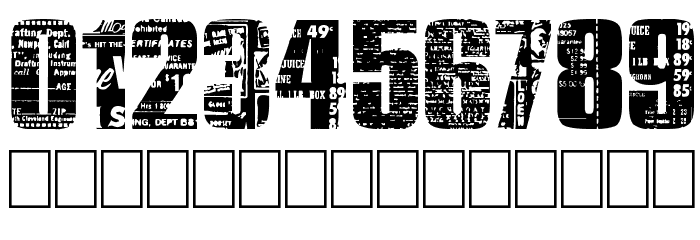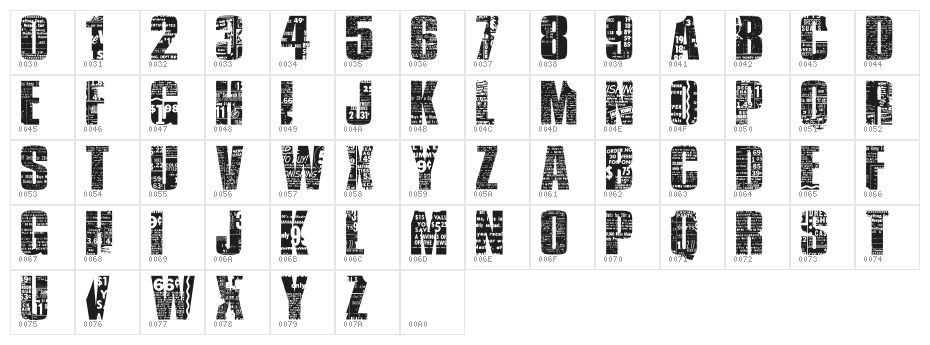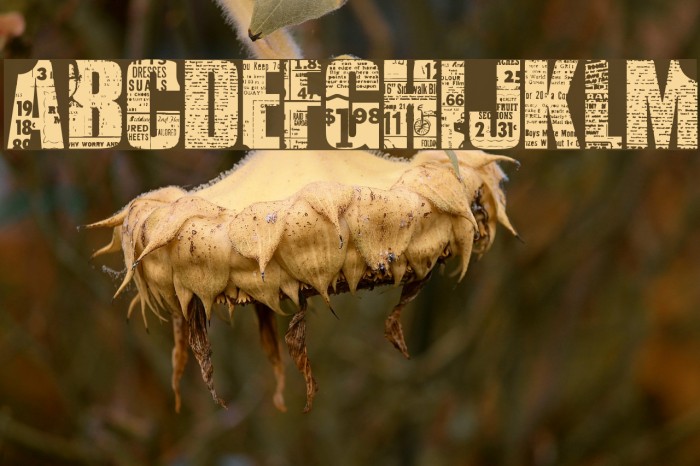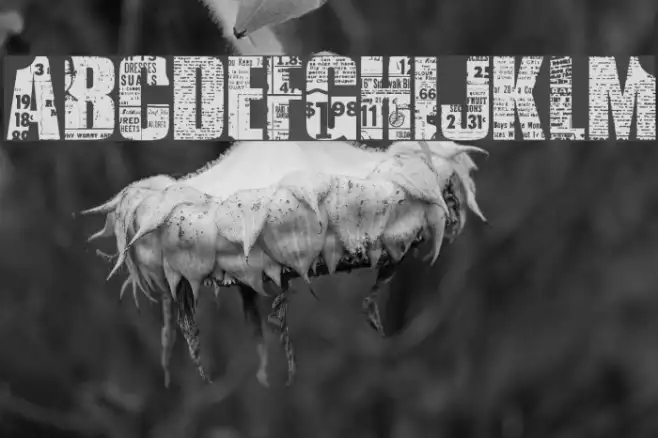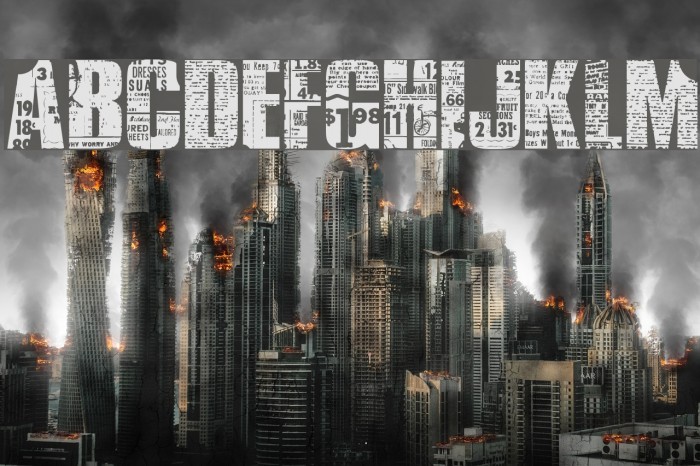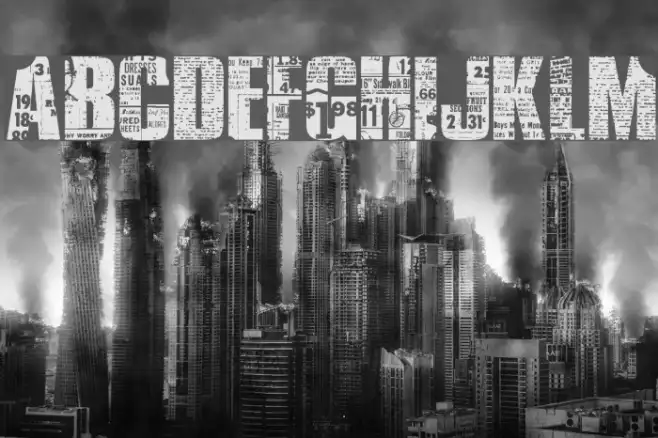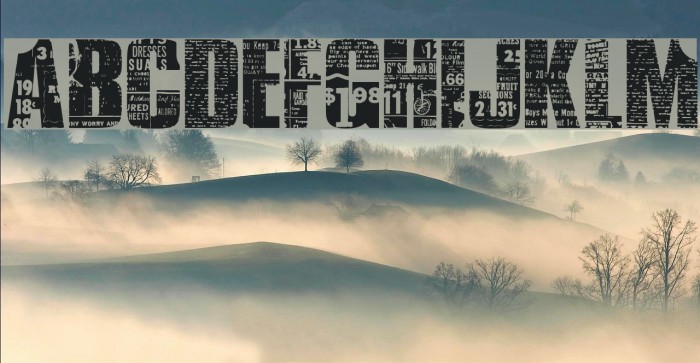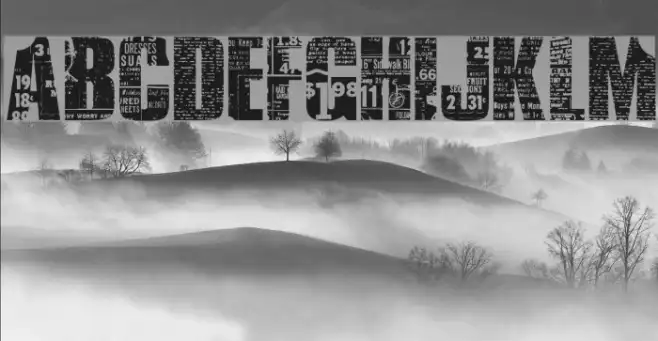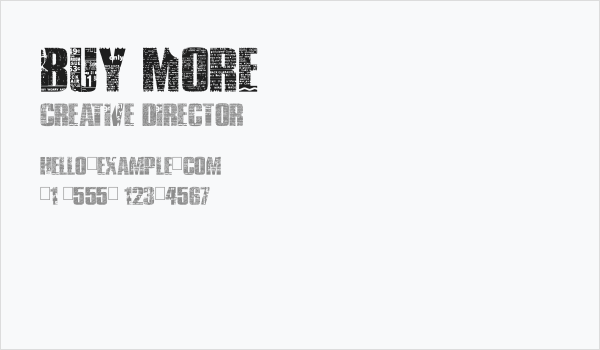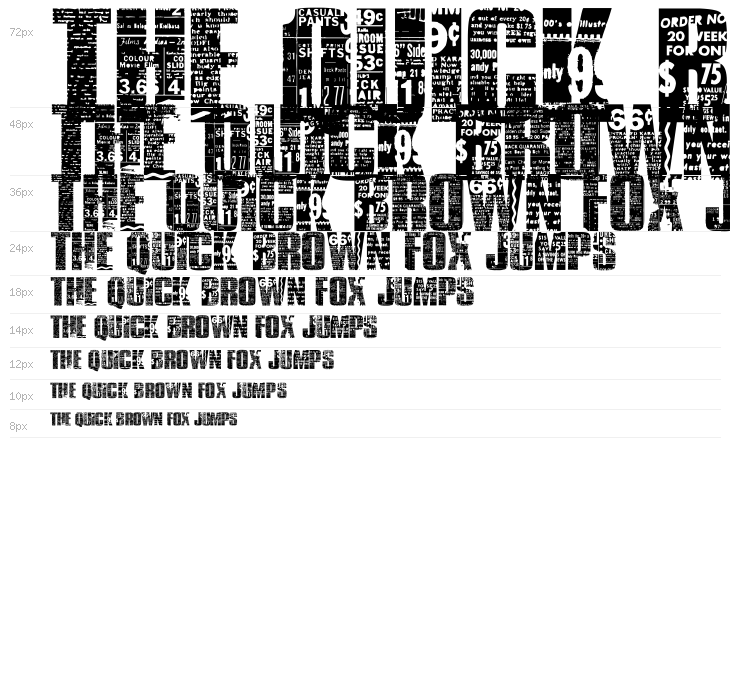
Buy More Font
Buy More Description
This font features a bold and striking design with a collage-like texture, incorporating various newspaper and advertisement clippings within each character. The uppercase and lowercase letters, as well as numbers, are filled with intricate details that give a sense of depth and complexity. The style is reminiscent of vintage print media, making it visually engaging and unique. The characters are well-defined and maintain a consistent weight, providing a cohesive look across the entire set. This font is ideal for projects that require a retro or nostalgic feel, capturing the essence of old-school advertising and print design.
| Overall Style | Vintage |
| Proposed Projects | Ideal for retro-themed posters, vintage advertisements, artistic projects, and branding that seeks a nostalgic touch. |